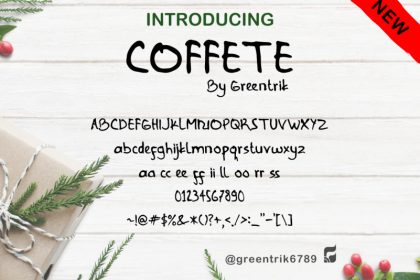
Coffete Script Font is a fun font that has stylistic alternates. This font can be used for anything such as T-Shirt designs, phone cases, greeting cards, invitations, mugs and so much more! Look for your inner shark and be creative with it!